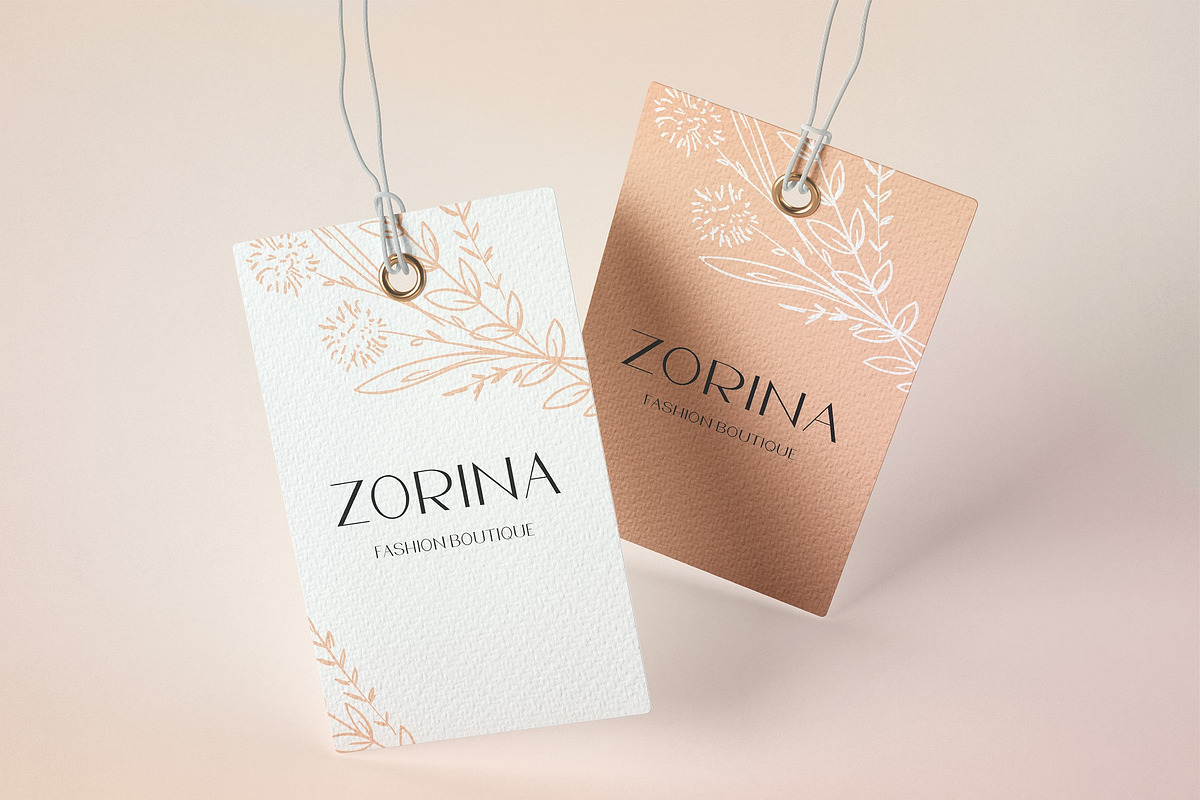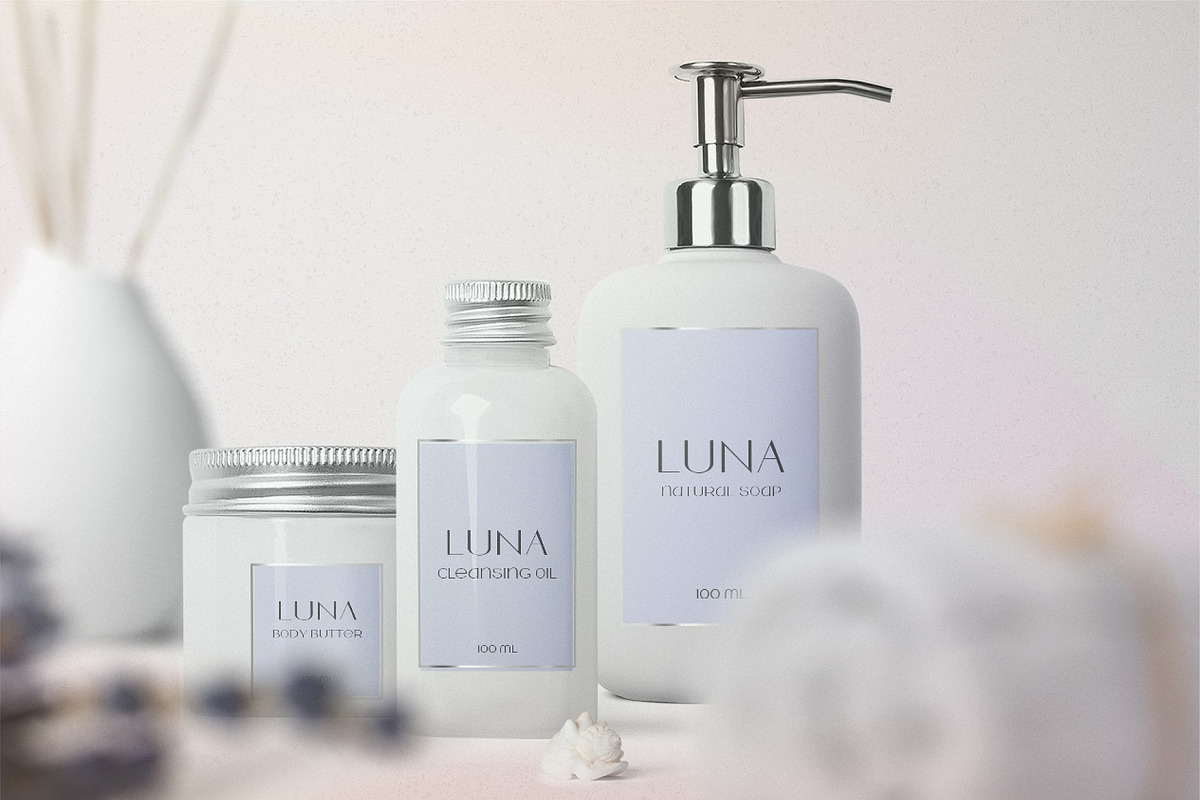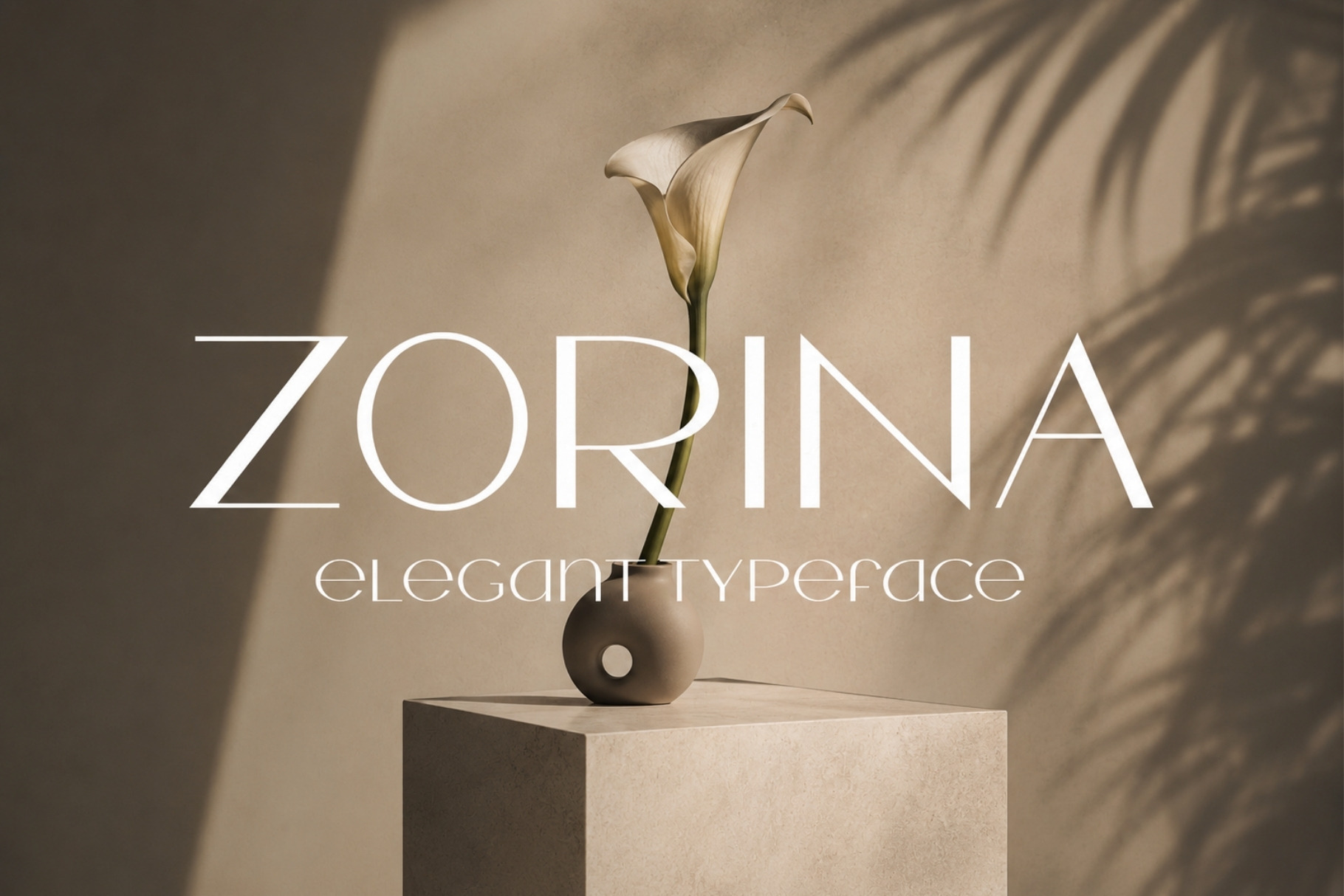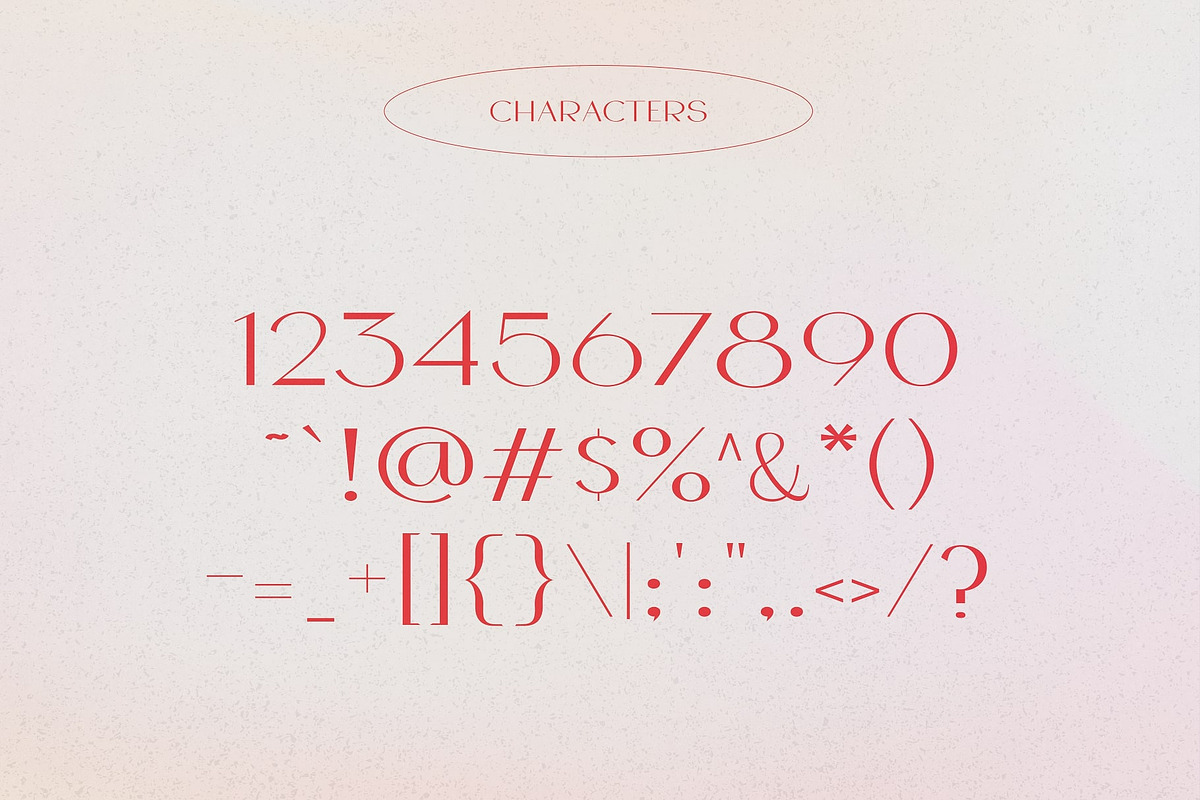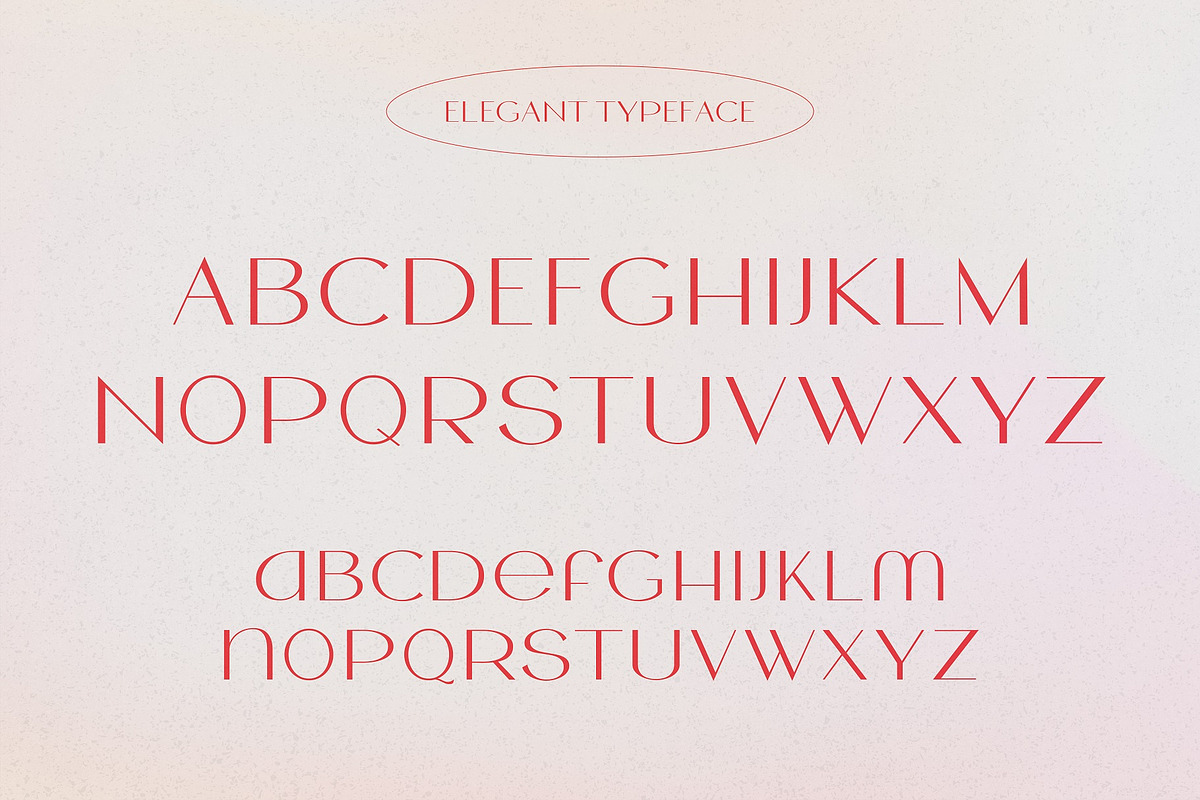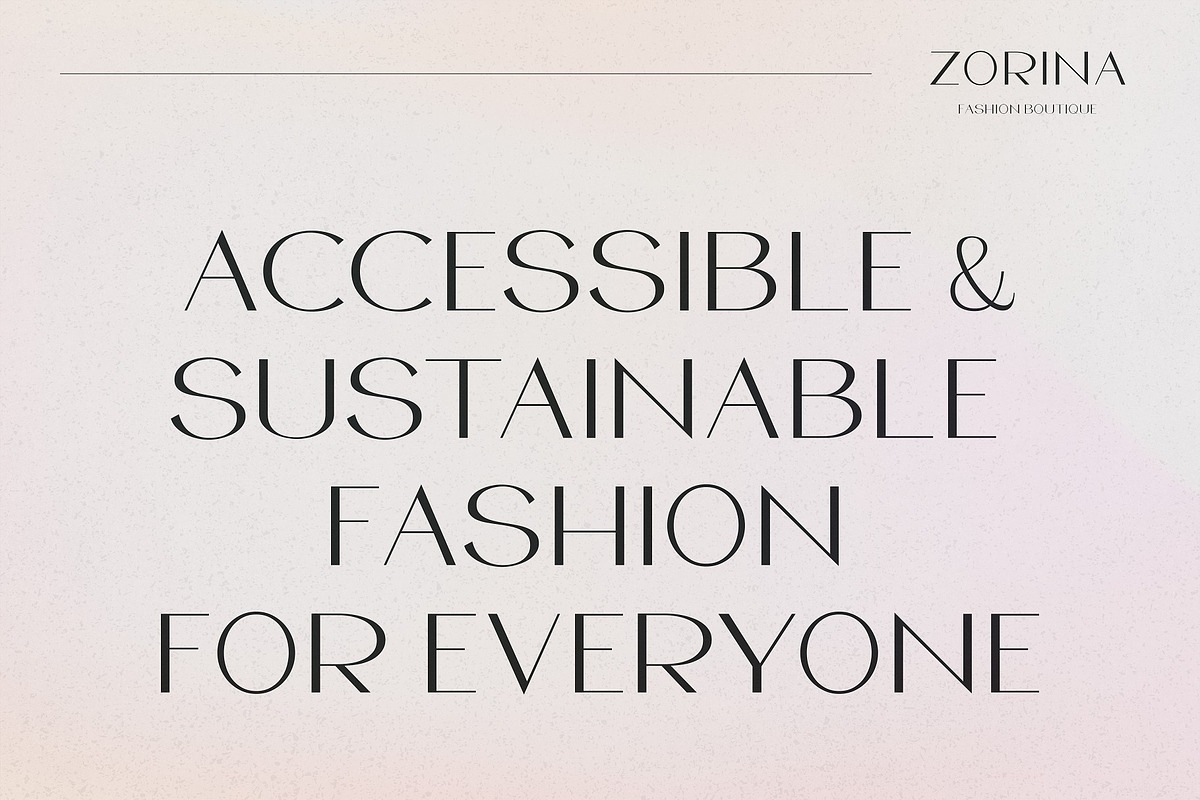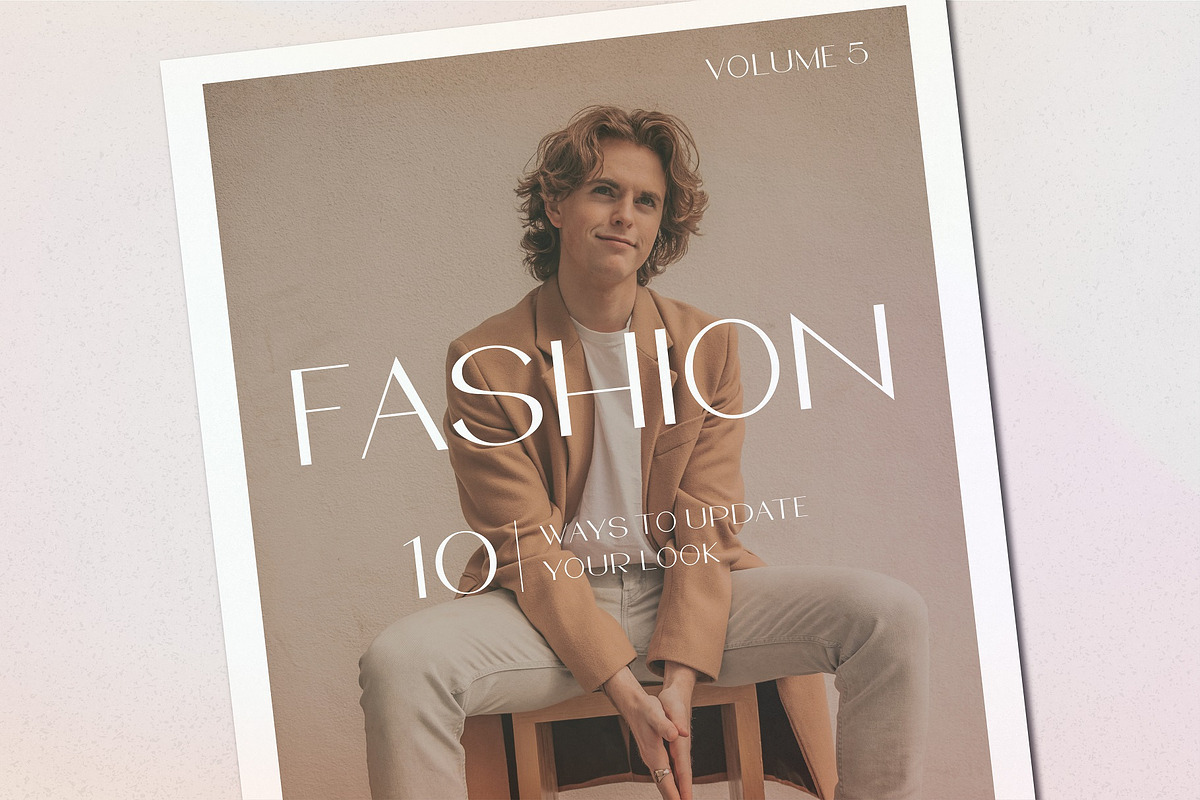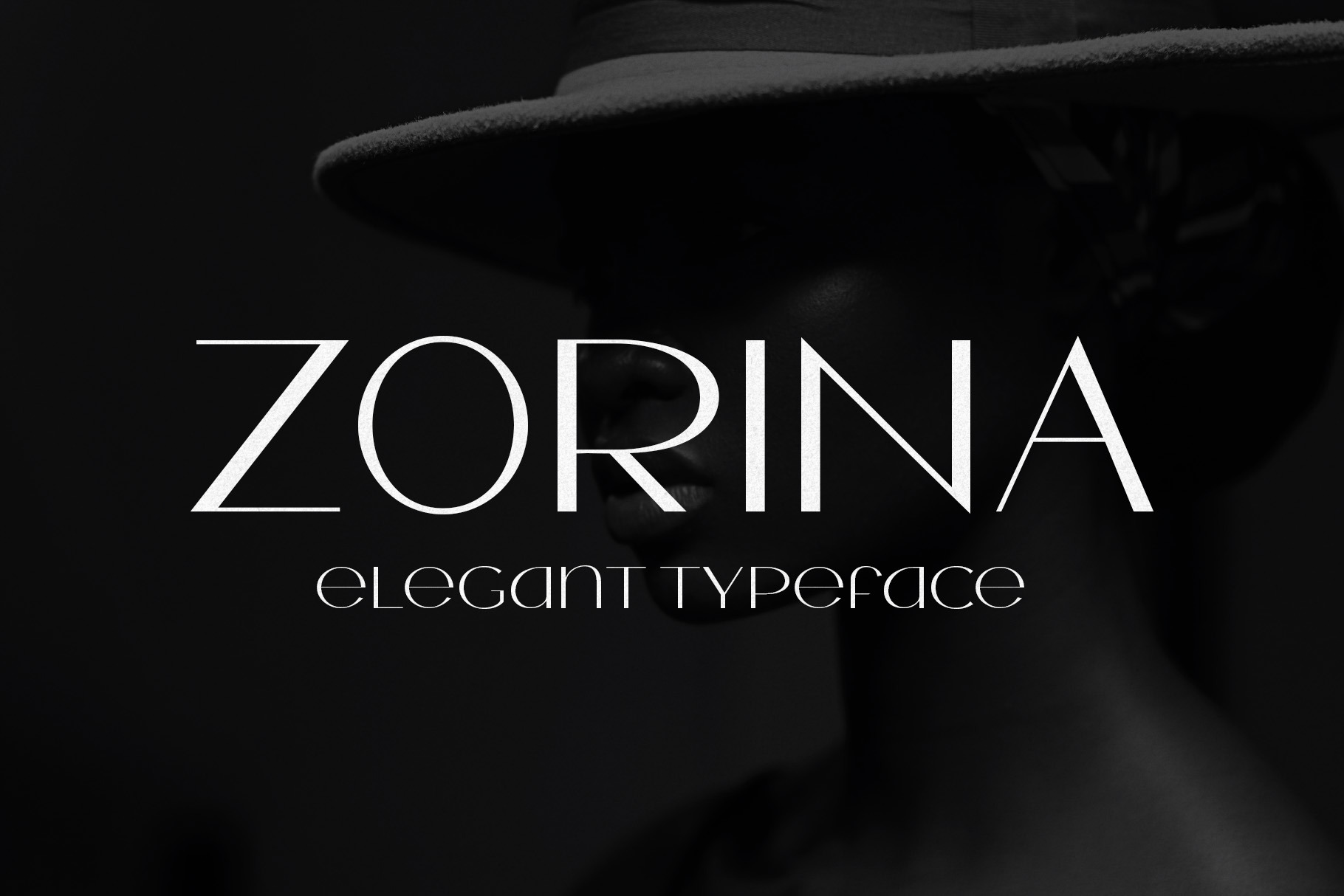
Zorina - Elegant Fashion Typeface
Zorina is an elegant, minimal typeface with a luxurious vibe. This clean typeface will greatly contribute to the modern and fashionable appeal of any fashion brand. Uppercase and lowercase letters are the same height, making this font super unique and versatile. Use it for quotes, magazines, headings, logos, packaging, branding, and invitations.